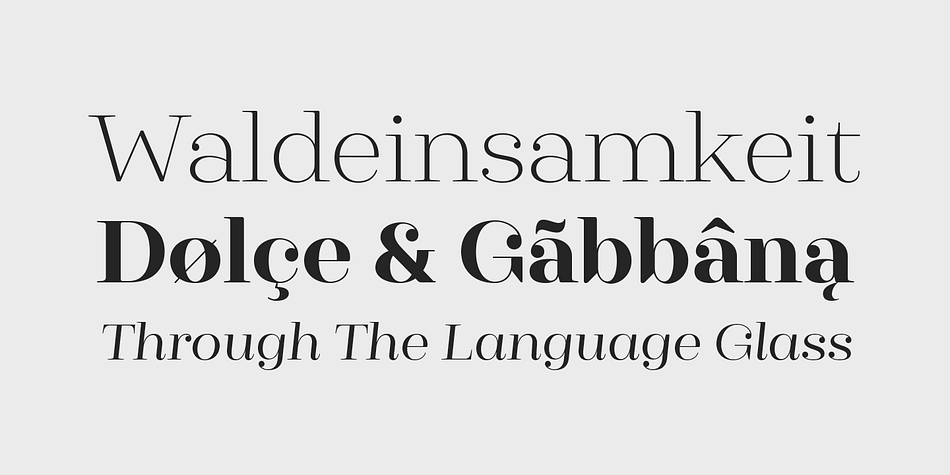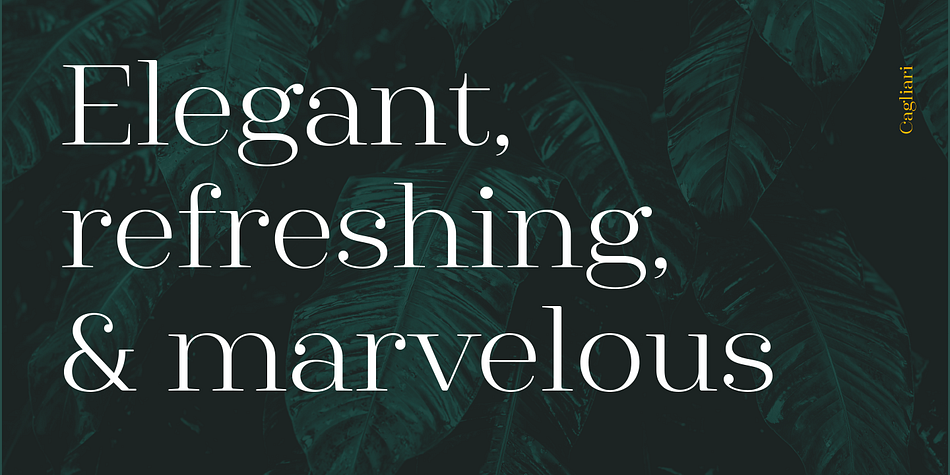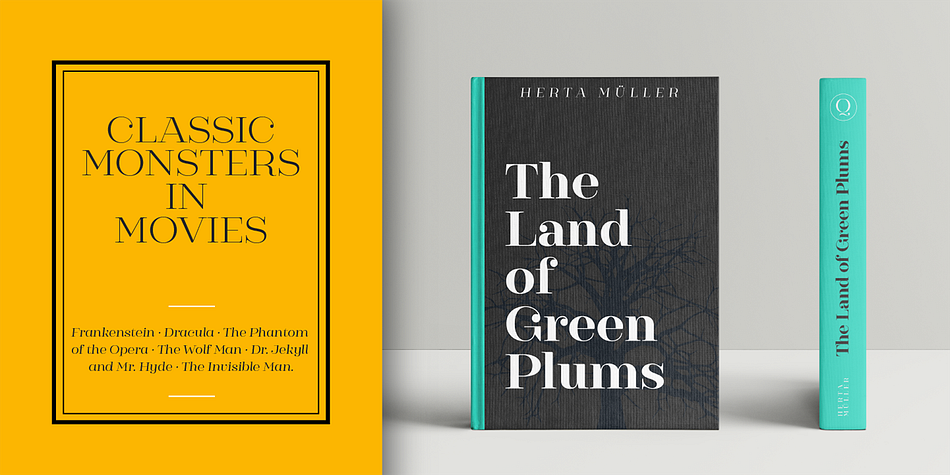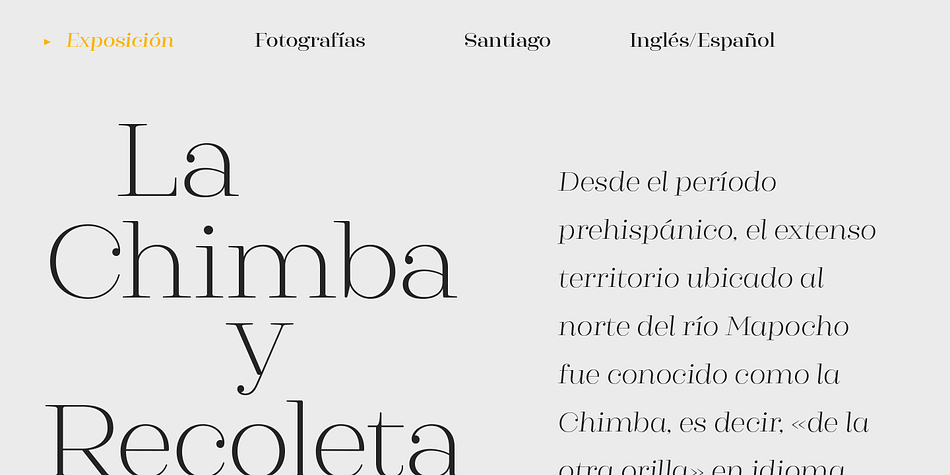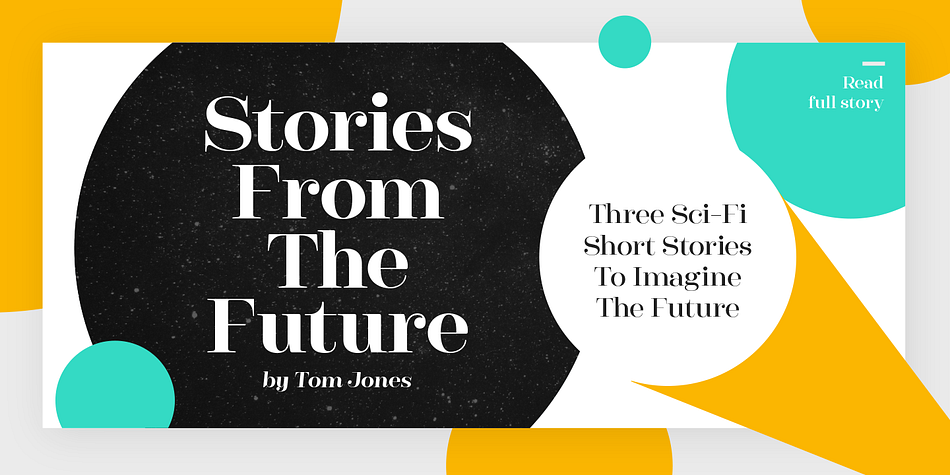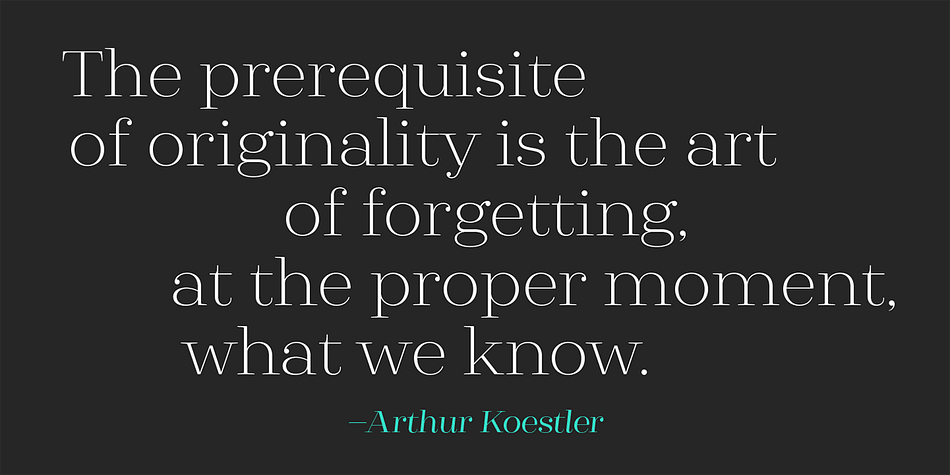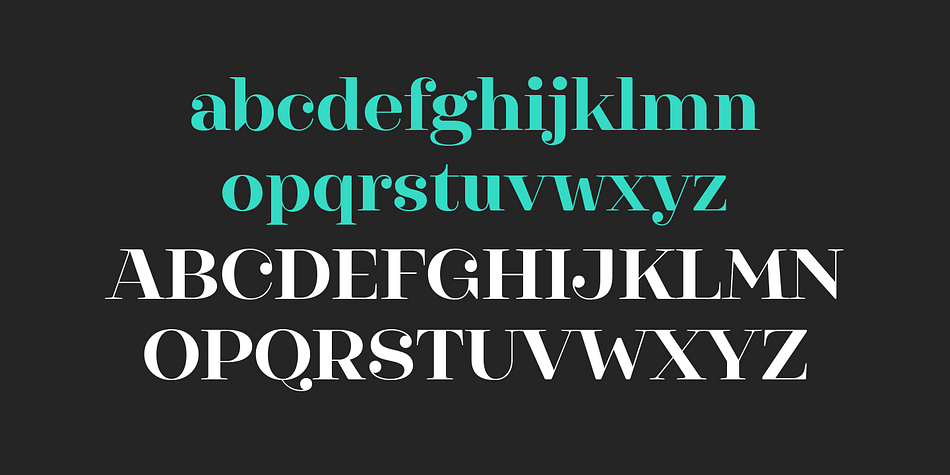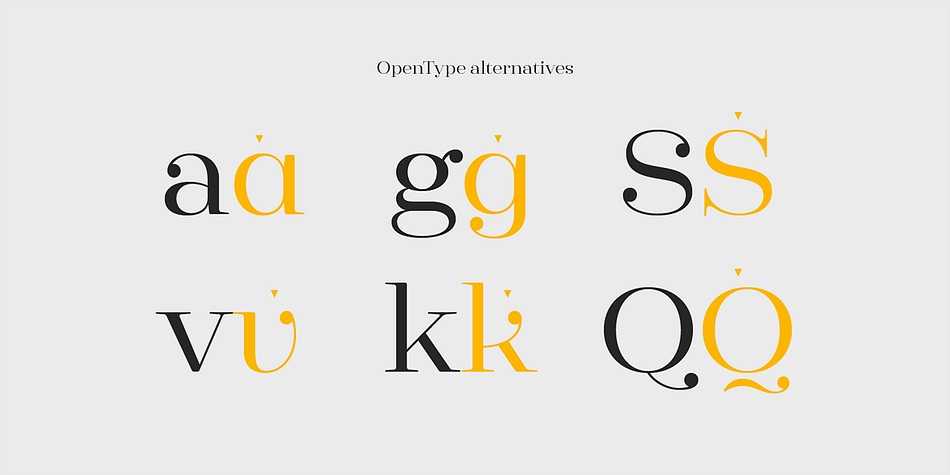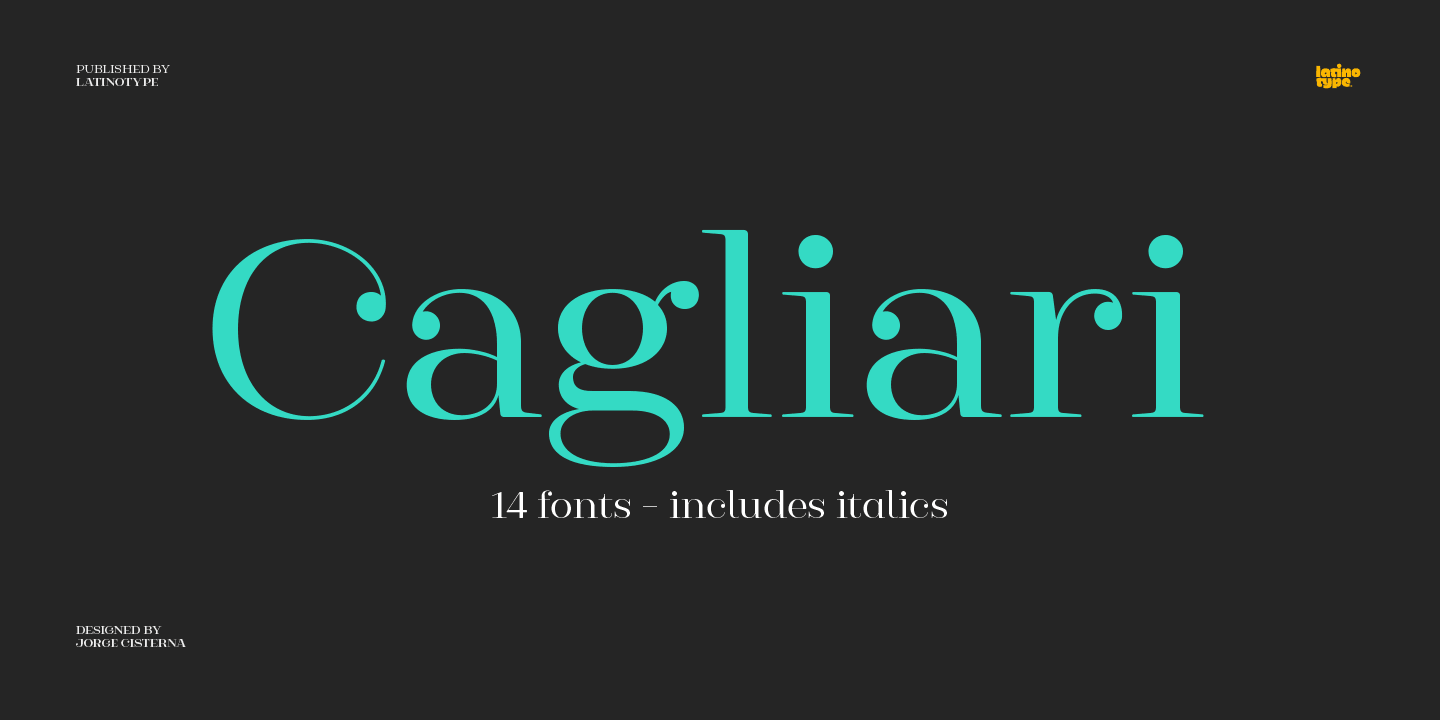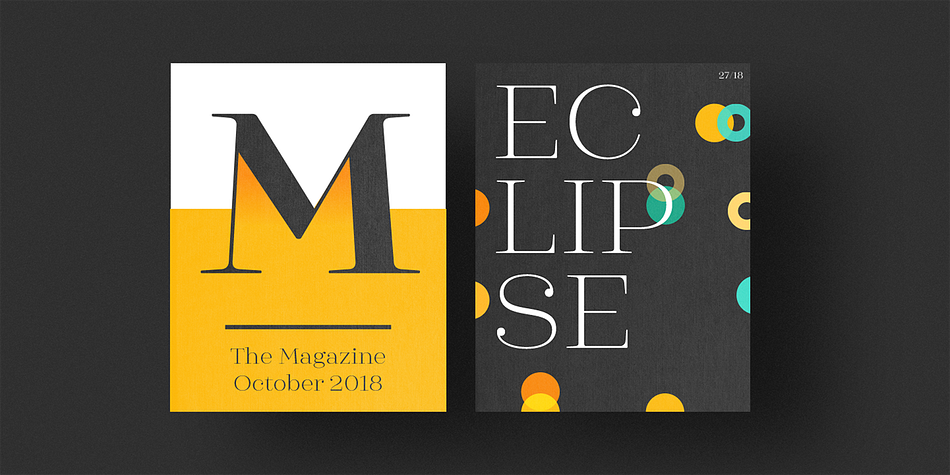
Designed by Jorge Cisterna, Cagliari is a display serif font family. This typeface has fifteen styles and was published by Latinotype.
An elegant, stylish and easy-to-use typeface.
Just as a nice hat makes you look good, Cagliari brings beauty to your designs—through the traditional flavor of Didone faces, and the simplicity of Modern and neo-Grotesk fonts.
The font is based on the “Queulat” design yet features a higher contrast, between thick and thin strokes, which makes it look simple and suitable for a wider range of uses. Due to an abrupt contrast in stroke weight, Cagliari is more noticeable on terminals and teardrop terminals compared to Queulat. The Neogrotesk-style shapes add a minimalist touch to the font with thoughtful attention to detail.
Cagliari is the ideal choice for fashion magazines, Italian-author books and logotypes for prestigious brands.